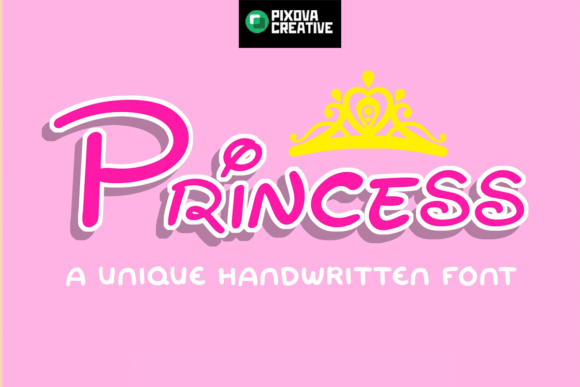
Princess Font
Princess font is a unique, magical font that looks like it was hand-drawn. It’s perfect for adding a touch of fairy tale charm to your projects.